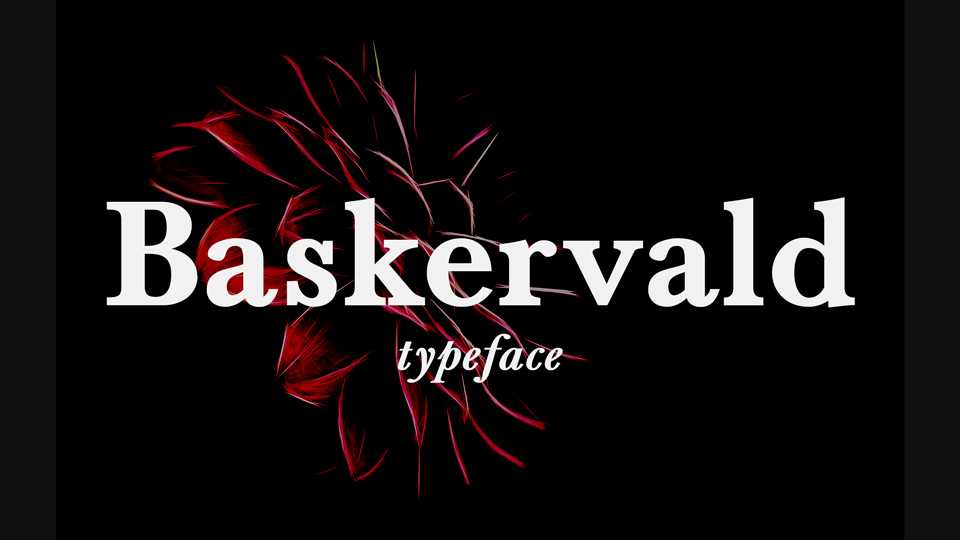
Download Baskervald typeface, a serif font family in three weights and Italics, readable and very elegant. Baskervald is an excellent text font that can be used for publications or documents for the web.
Designer: Arkandis Digital Foundry